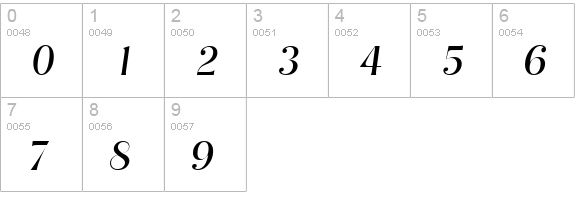
Tennessee Light SF Italic is a refined, elegant, italic variant in the Tennessee typeface family \xE2\x80\x94 well suited to elegant body text, refined sub-headings, and luxury branding.
Tennessee Light SF Italic font is a beautifully crafted typeface that exudes elegance and sophistication. Its delicate strokes and graceful curves make it perfect for adding a touch of refinement to any design project. This font carries a sense of modernity, while still maintaining a classic appeal. With its light weight and slanted italic design, Tennessee Light SF Italic font effortlessly captures attention and adds a subtle sense of dynamism to any text. Whether used for headlines, body text, or even logos, this font stands out in its ability to convey a sense of style and professionalism. What makes Tennessee Light SF Italic font even more appealing is that it is freely available to download at FontsMarket.com. This means that designers and enthusiasts alike can easily access and utilize this font in their projects without any cost. Its availability for free makes it an excellent choice for individuals and businesses looking for high-quality typography without breaking the bank. Download Tennessee Light SF Italic font today from FontsMarket.com and elevate your designs to new heights. With its impeccable craftsmanship and freely accessible nature, this font is sure to impress and enhance any project with its unique charm and versatility.